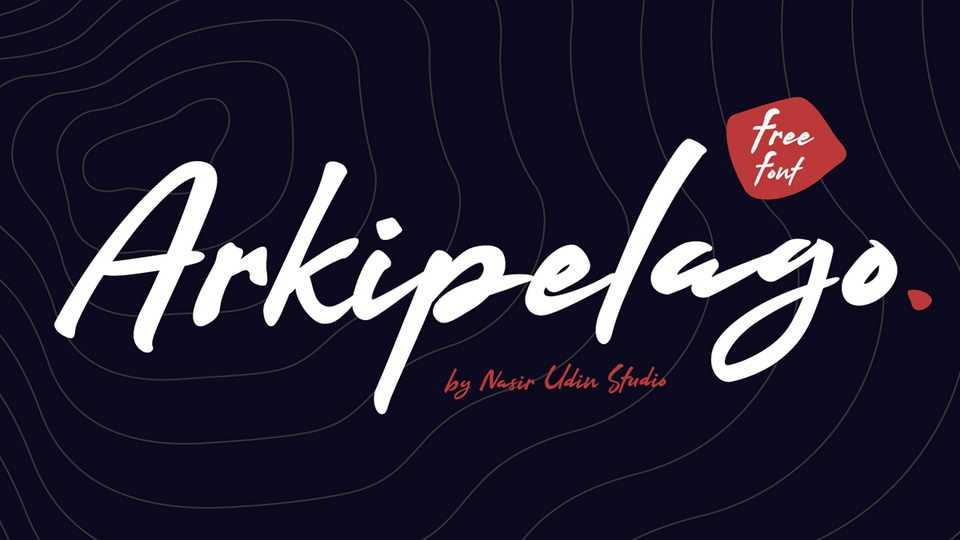
Download Arkipelago font, a wet inky brush script typeface that has a traditional vibe with its imperfect handwriting. Great for logos, labels, badges, headlines and other creative craft designs.
Designer: Nasir Udin